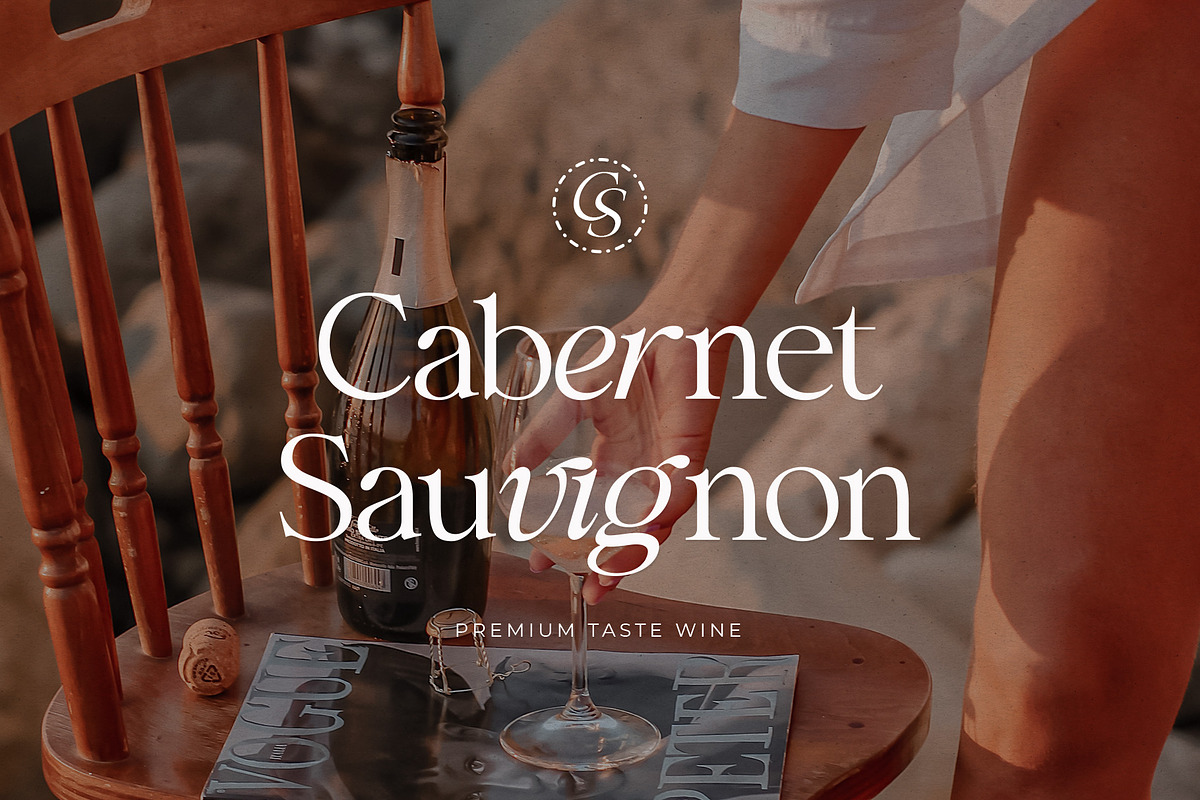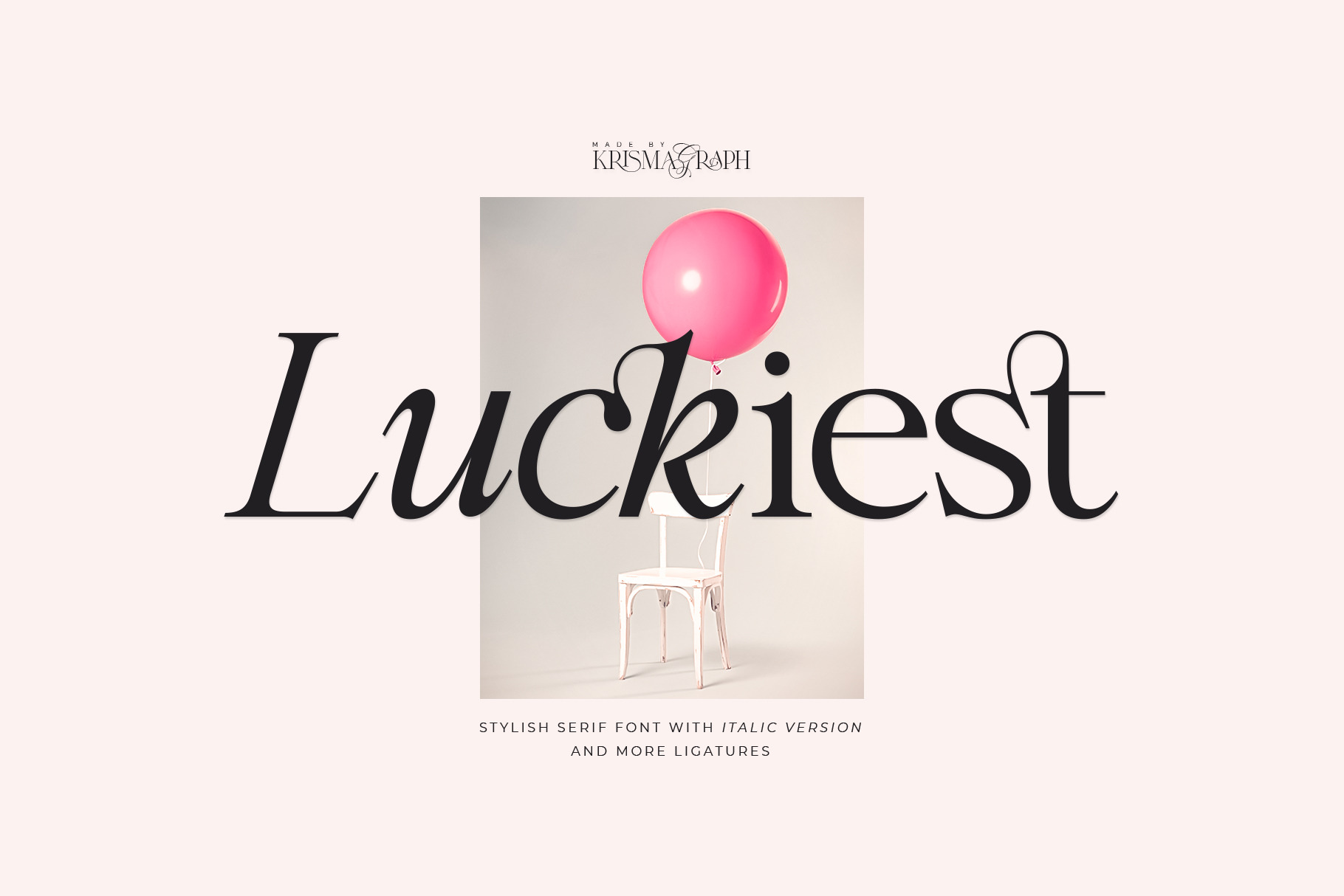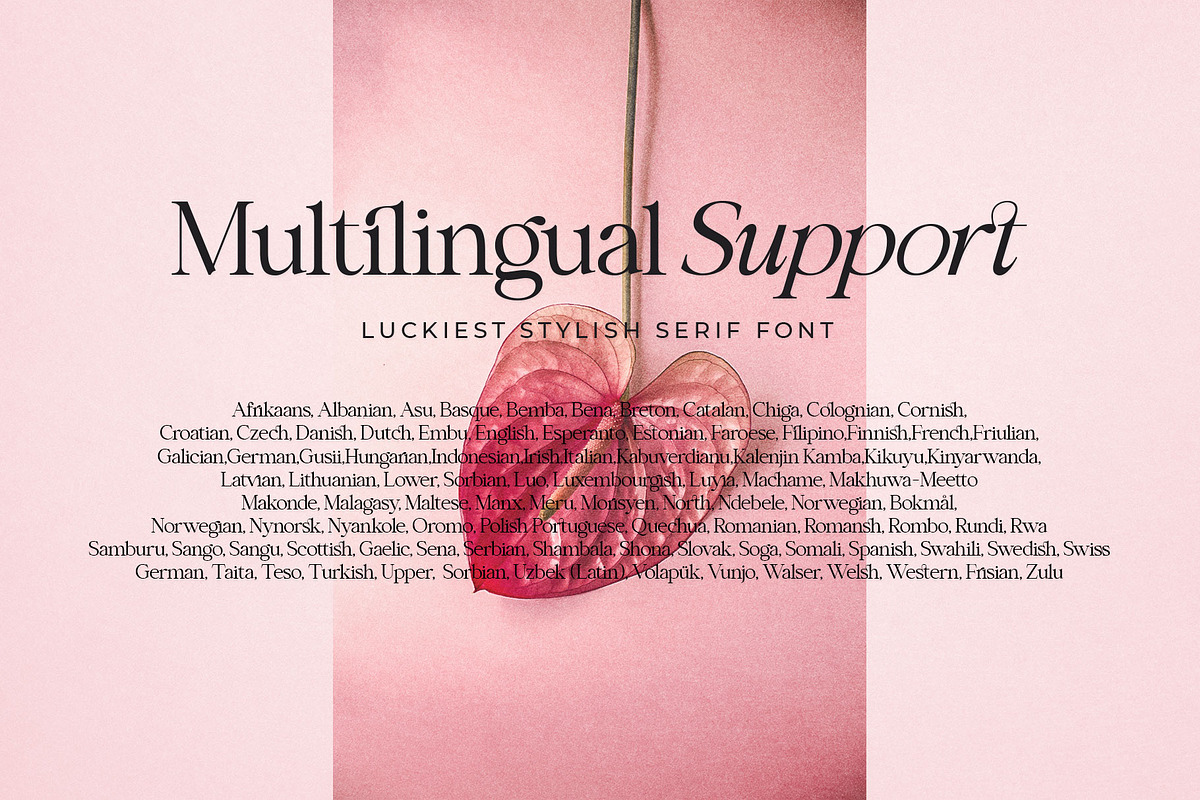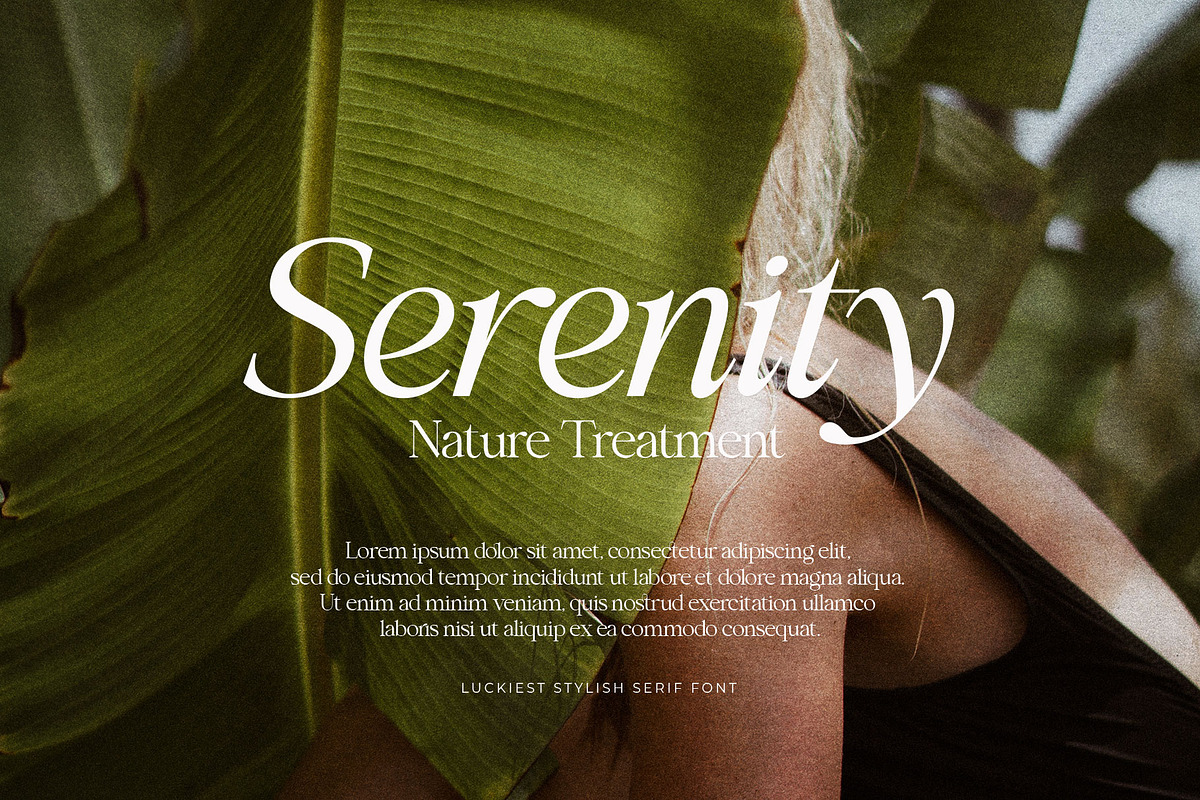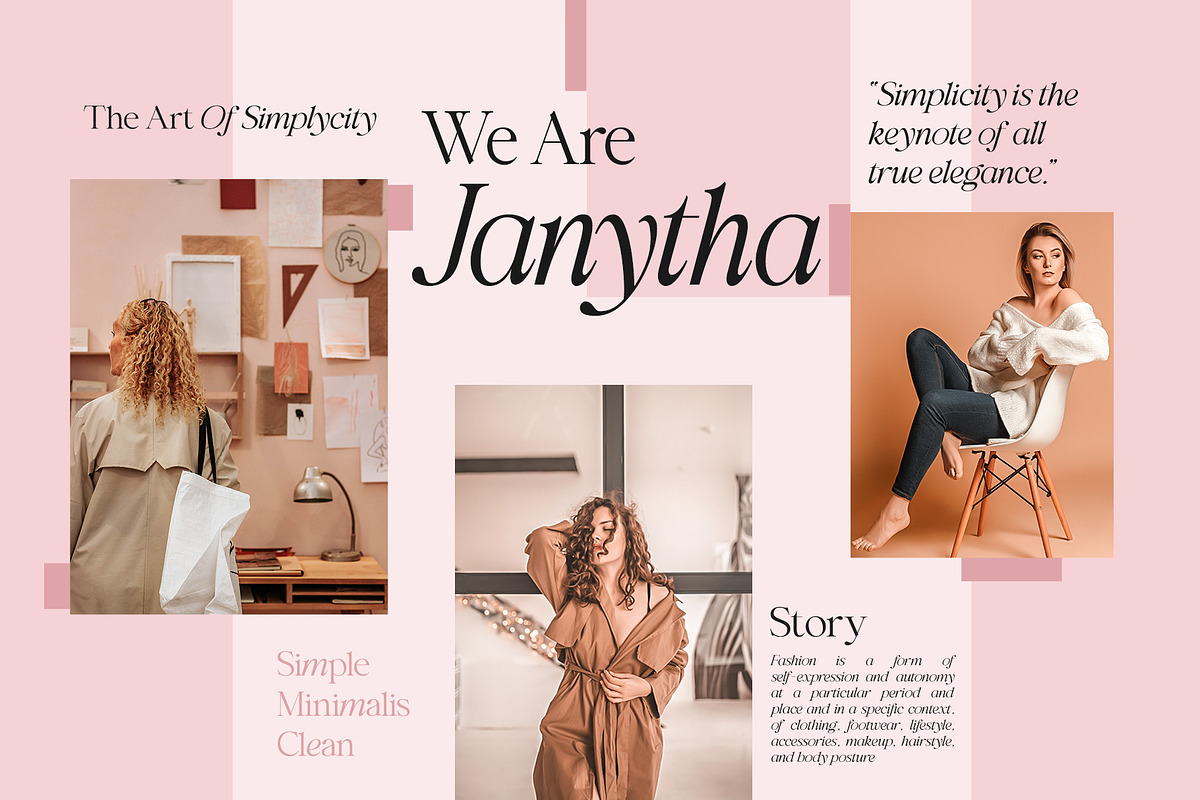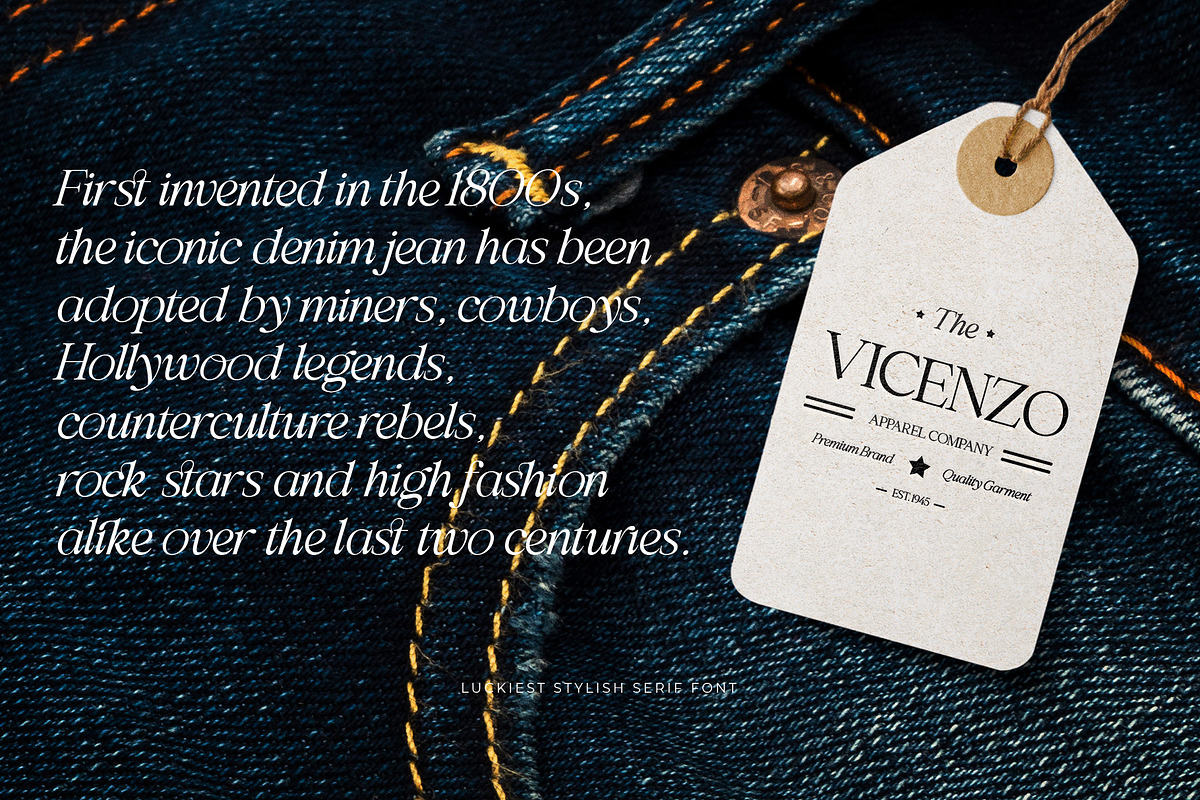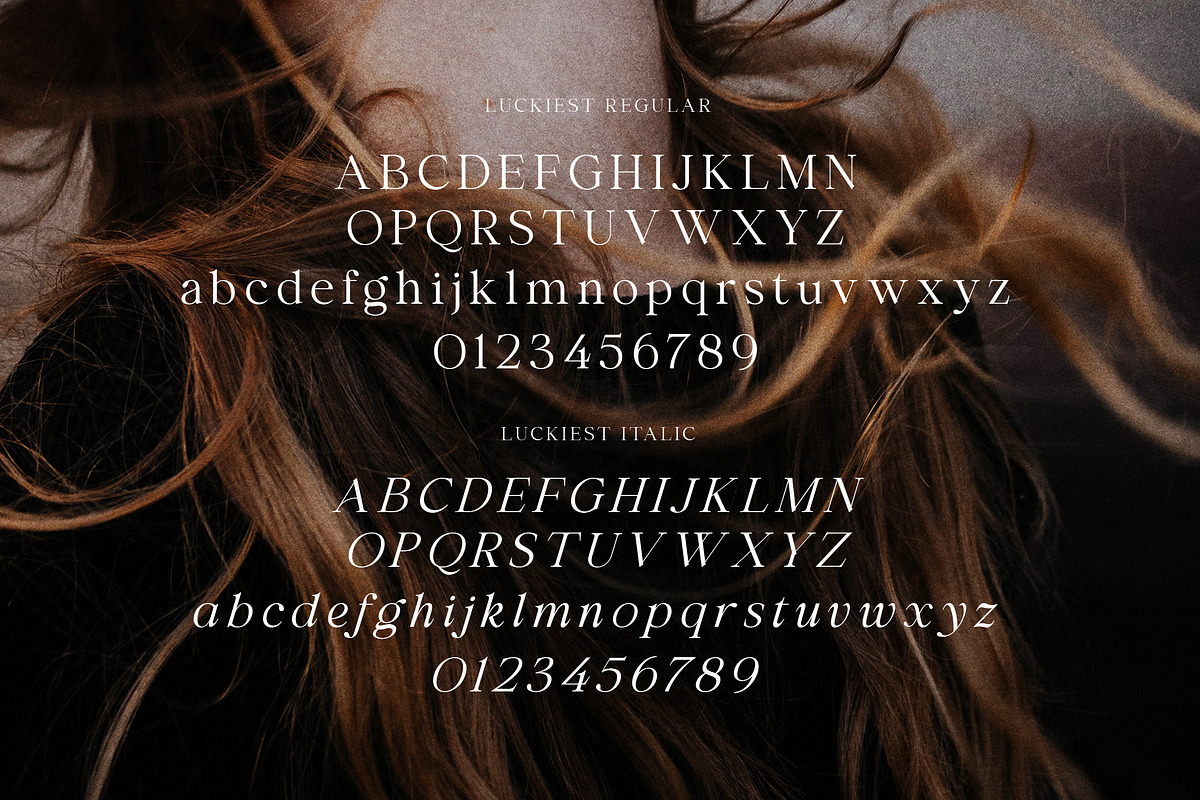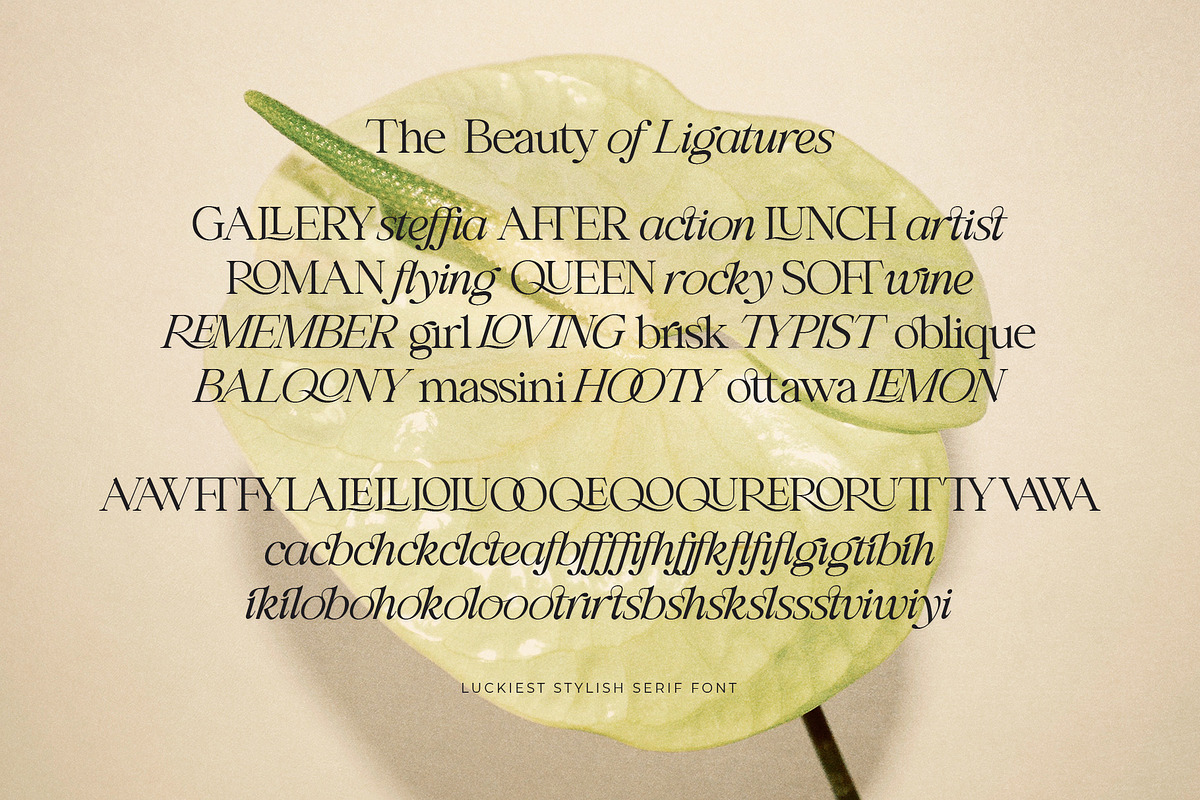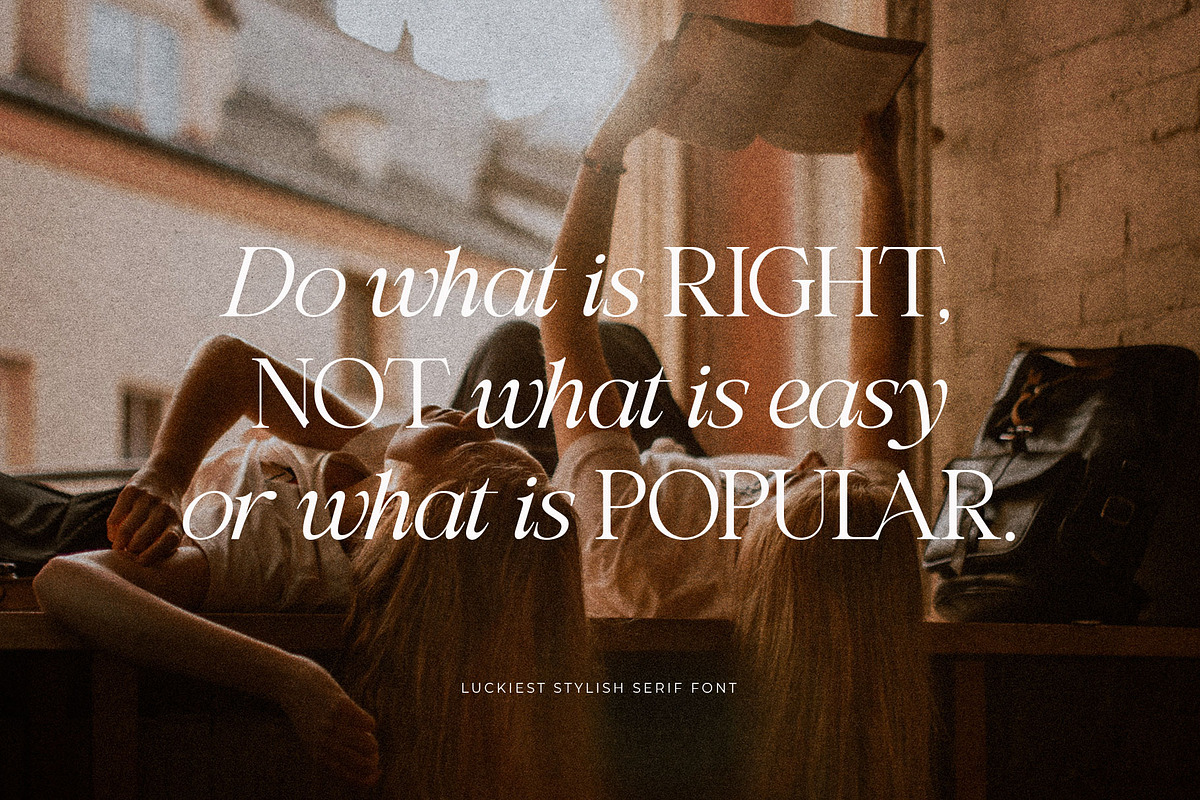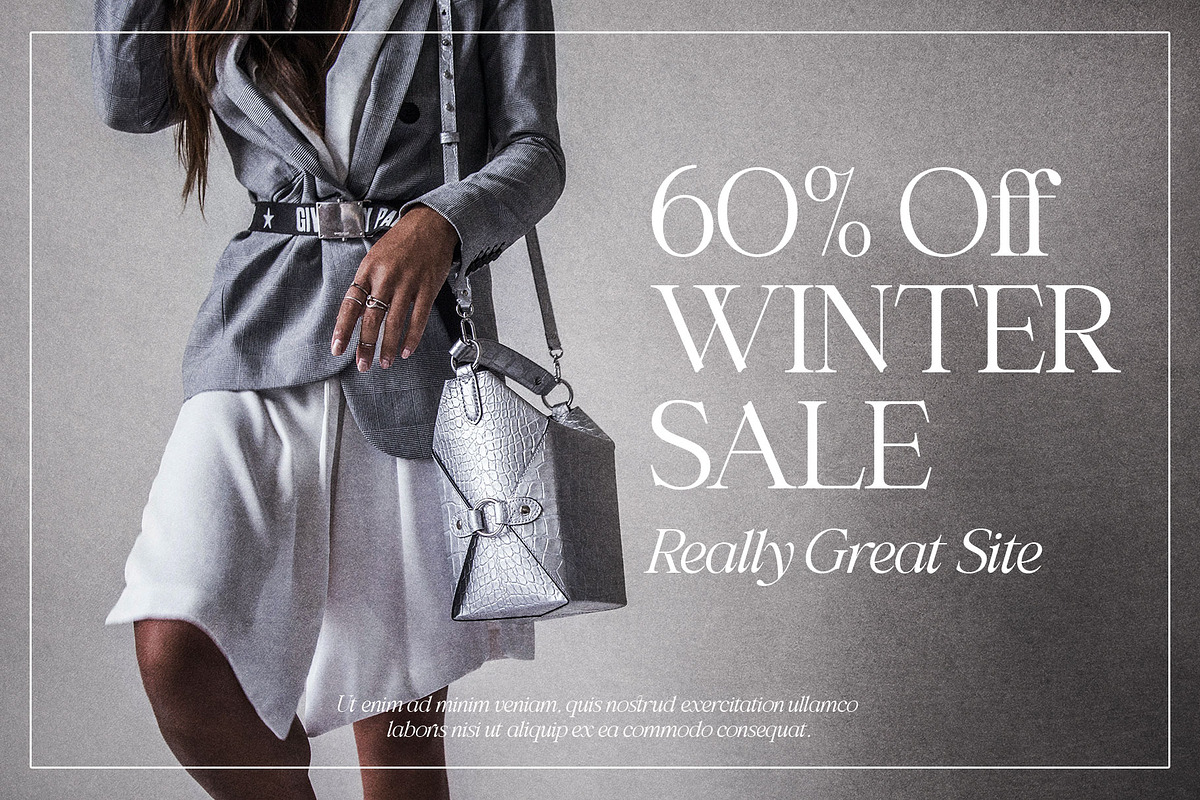
Luckiest | Stylish Serif Font
Luckiest is a Stylish Ligature Serif Font. Its soft curves mixed with high-contrast glyphs, give it a feminine and masculine quality. Come in two versions, namely Regular & Italic. It comes with beauty ligatures. Great in layout design for quotes or body copy, best used as a display for headings, logos, branding, magazines, product packaging, and invitations.
Fonts include multilingual support: Afrikaans, Albanian, Asu, Basque, Bemba, Bena, Breton, Catalan, Chiga, Colognian, Cornish, Croatian, Czech, Danish, Dutch, Embu, English, Esperanto, Estonian, Faroese, Filipino, Finnish, French, Friulian, Galician, German, Gusii, Hungarian, Indonesian, Irish, Italian, Kabuverdianu, Kalenjin Kamba, Kikuyu, Kinyarwanda, Latvian, Lithuanian, Lower, Sorbian, Luo, Luxembourgish, Luyia, Machame, Makhuwa-Meetto, Makonde, Malagasy, Maltese, Manx, Meru, Morisyen, North, Ndebele, Norwegian, Bokmål, Norwegian, Nynorsk, Nyankole, Oromo, Polish Portuguese, Quechua, Romanian, Romansh, Rombo, Rundi, Rwa, Samburu, Sango, Sangu, Scottish, Gaelic, Sena, Serbian, Shambala, Shona, Slovak, Soga, Somali, Spanish, Swahili, Swedish, Swiss German, Taita, Teso, Turkish, Upper, Sorbian, Uzbek (Latin), Volapük, Vunjo, Walser, Welsh, Western, Frisian, Zulu.